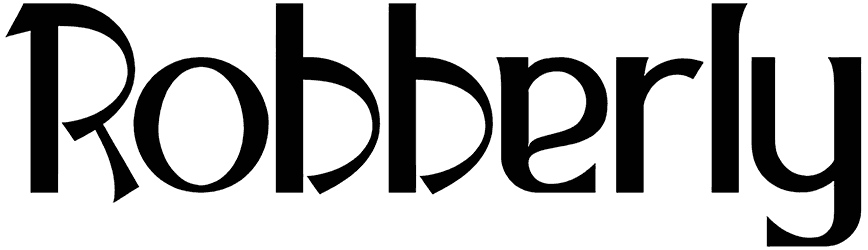
Robberly Font
One of the best things about a retro font like this one is how popular it is. The timeless and classic visual of this sign font will give a unique vibe to your café facade design or other projects. Robberly is going to throw a charming mood into your layout and capture a lot of observers.